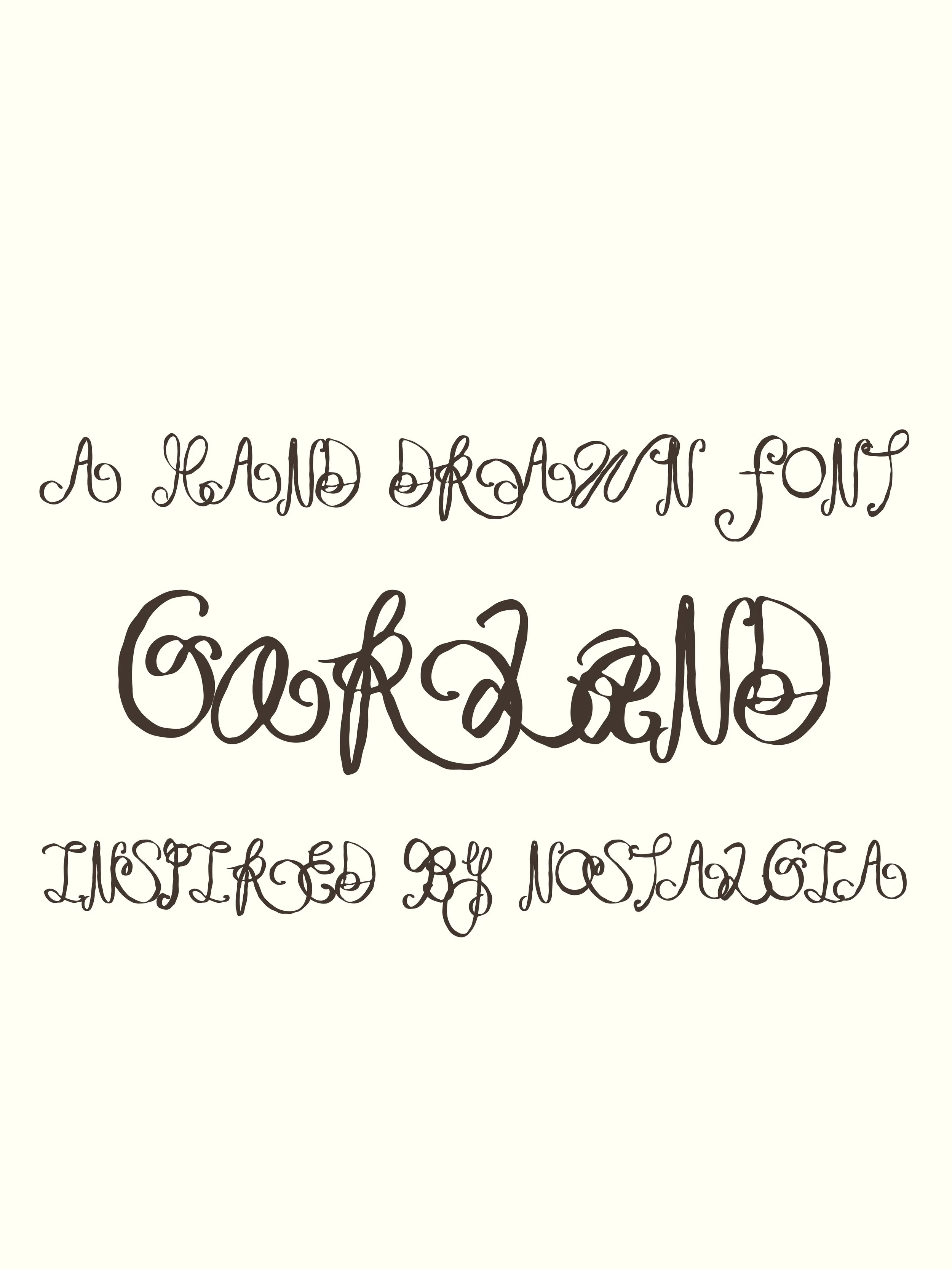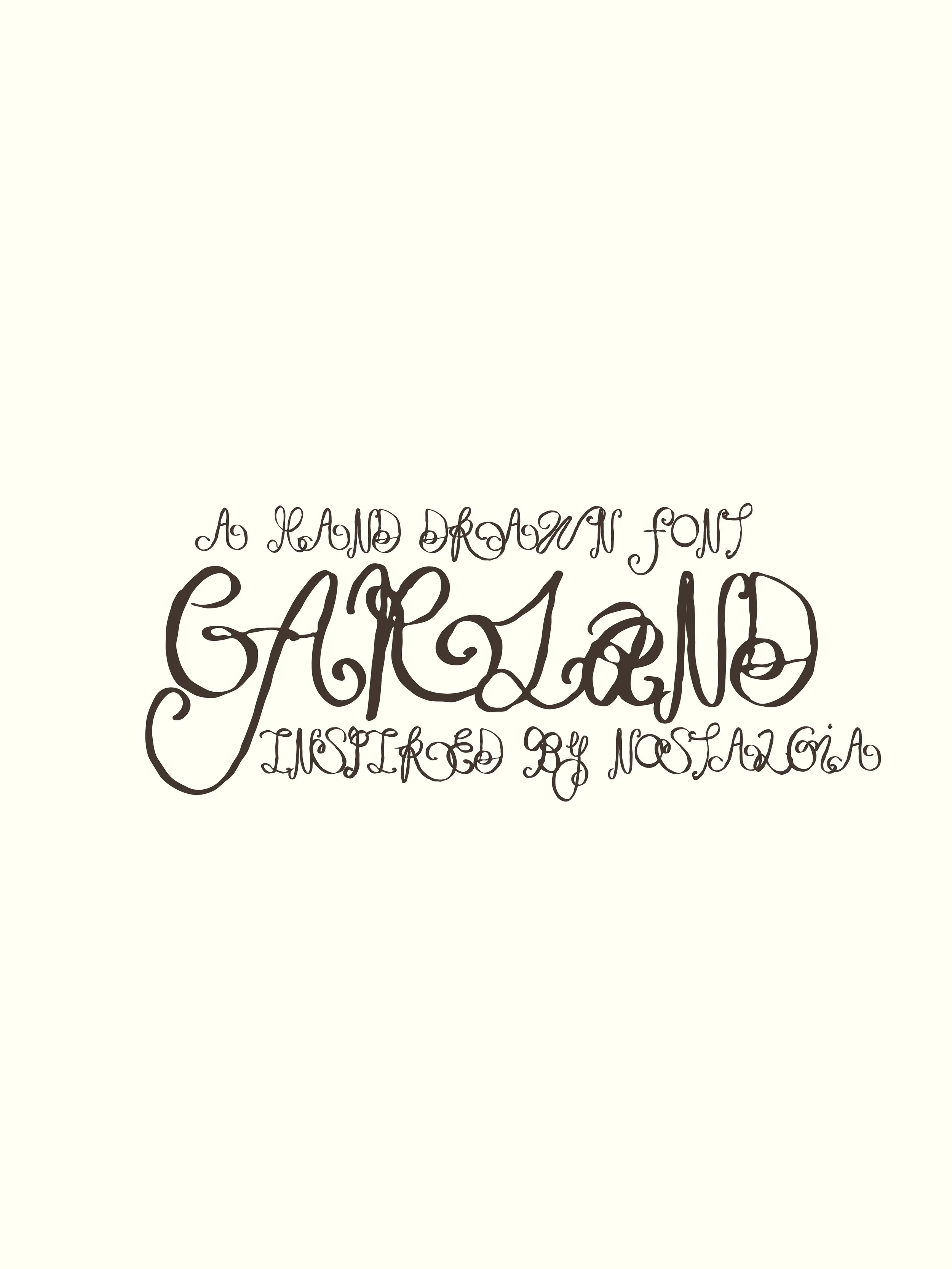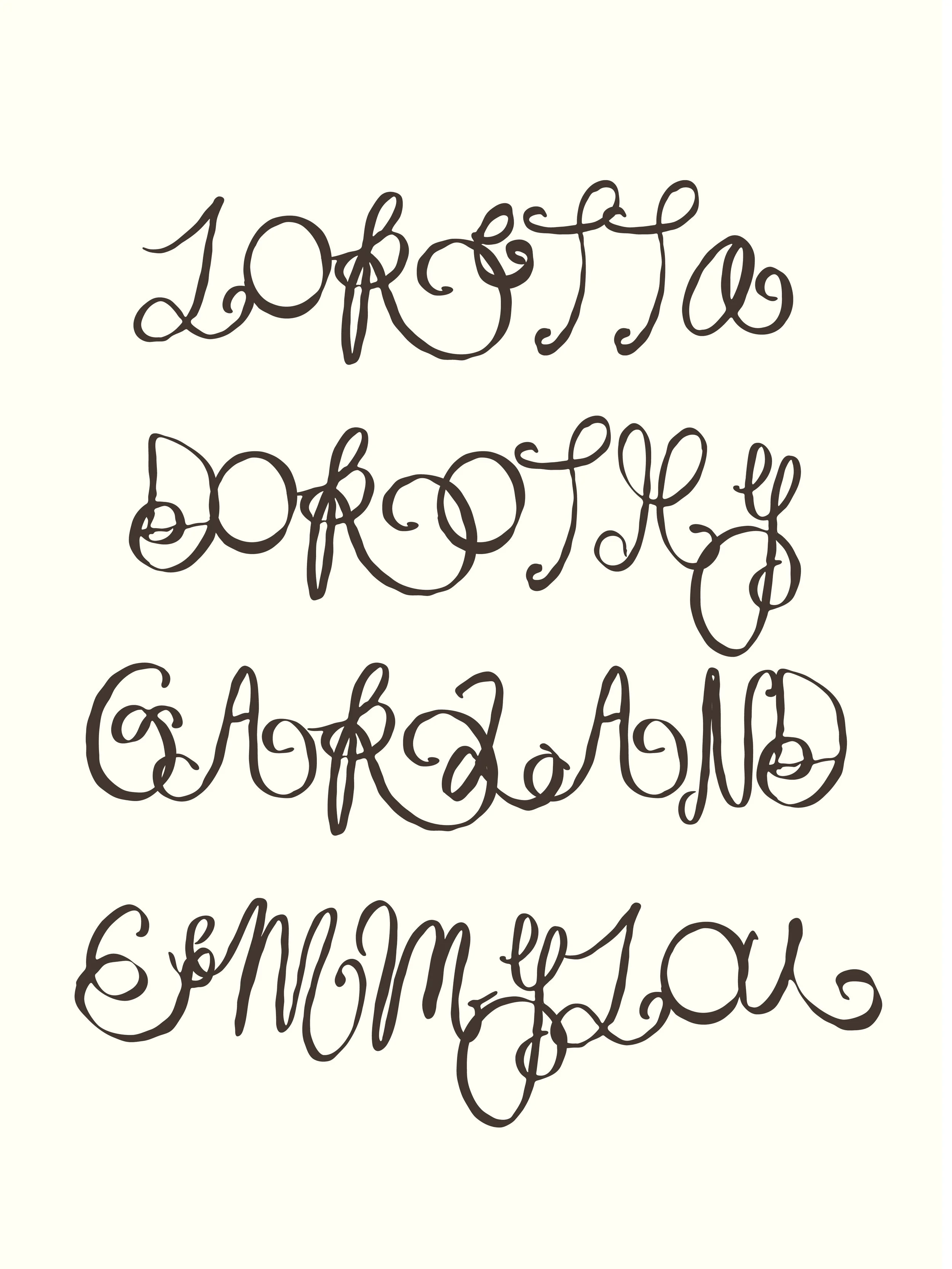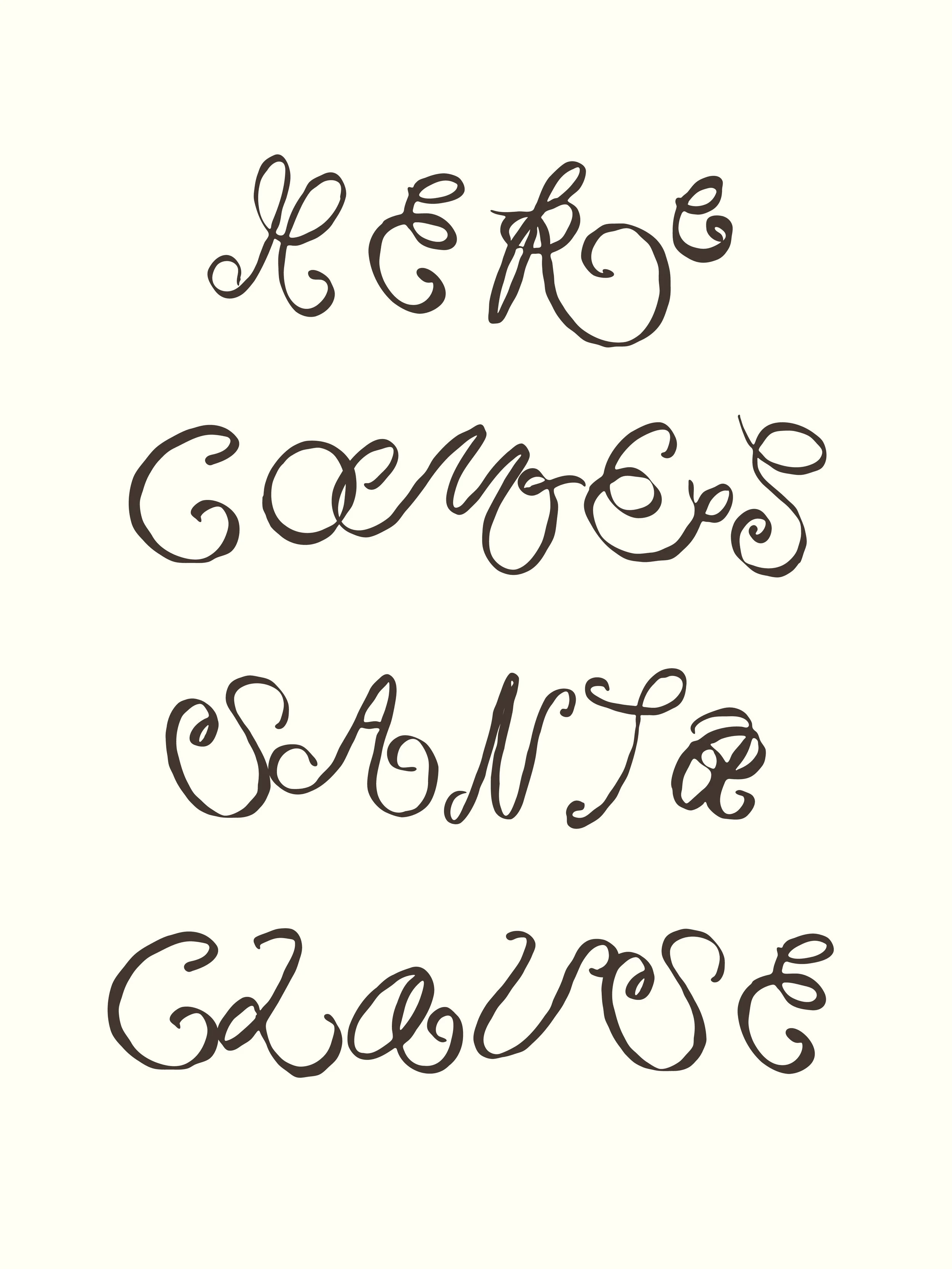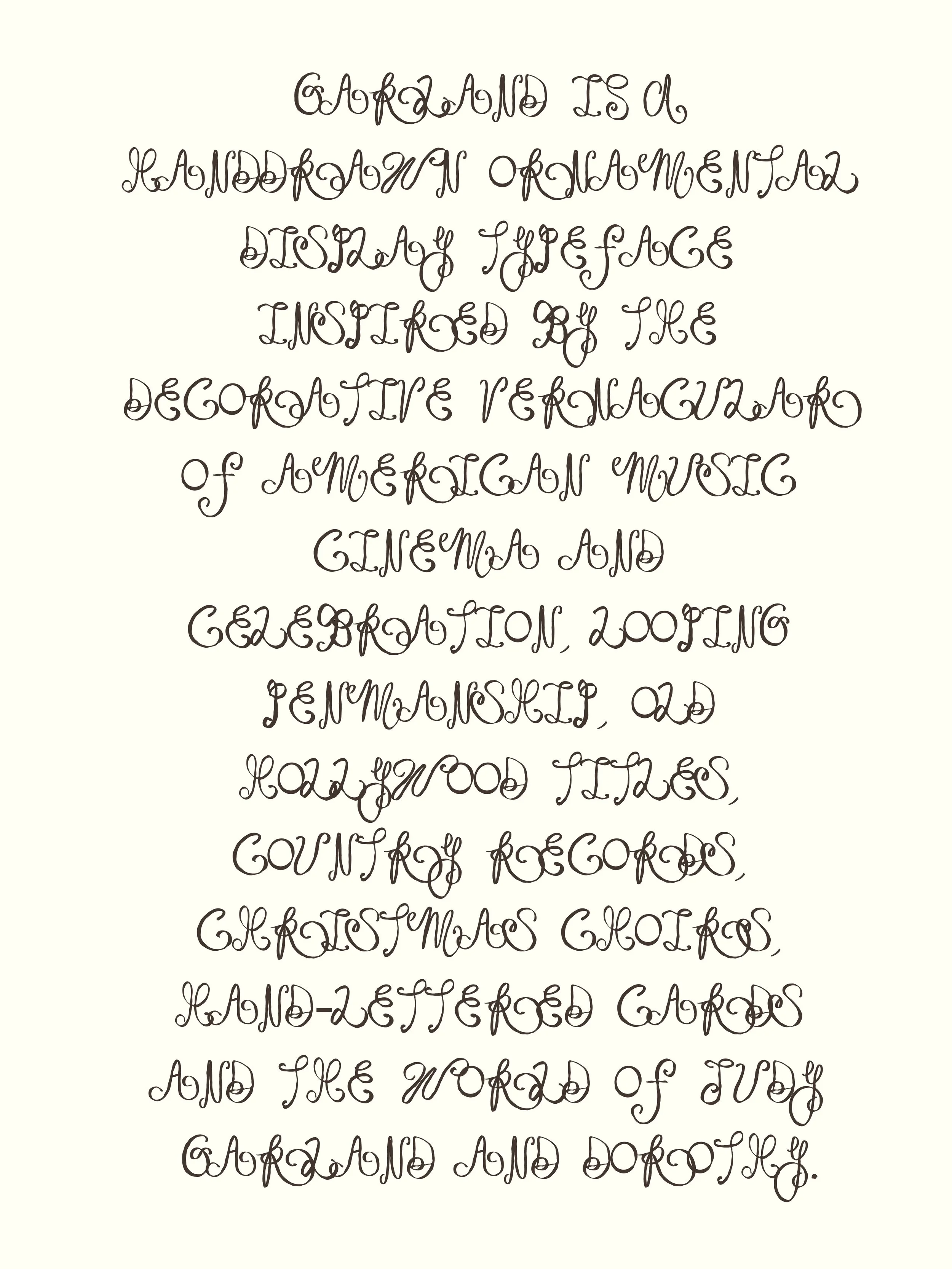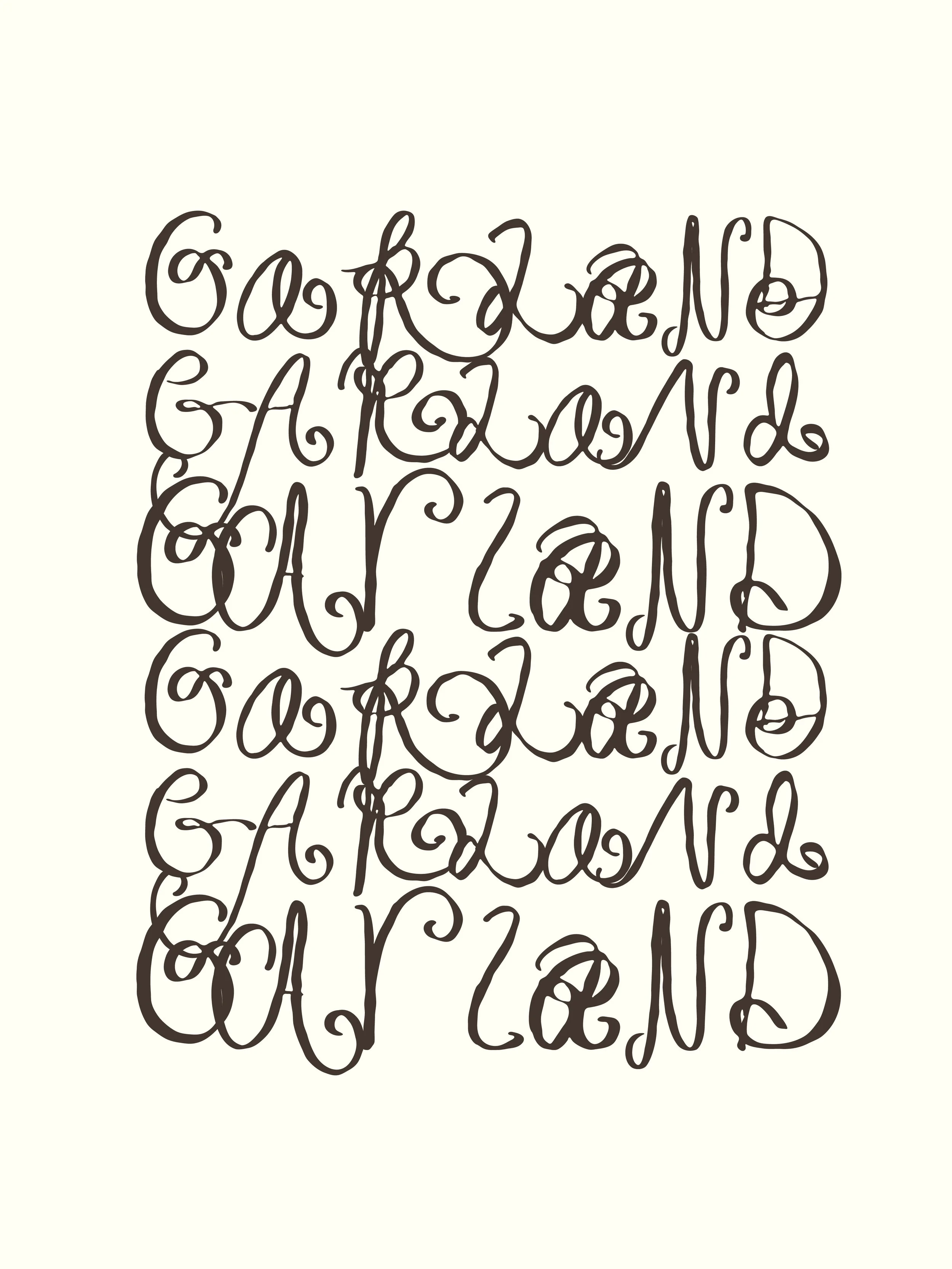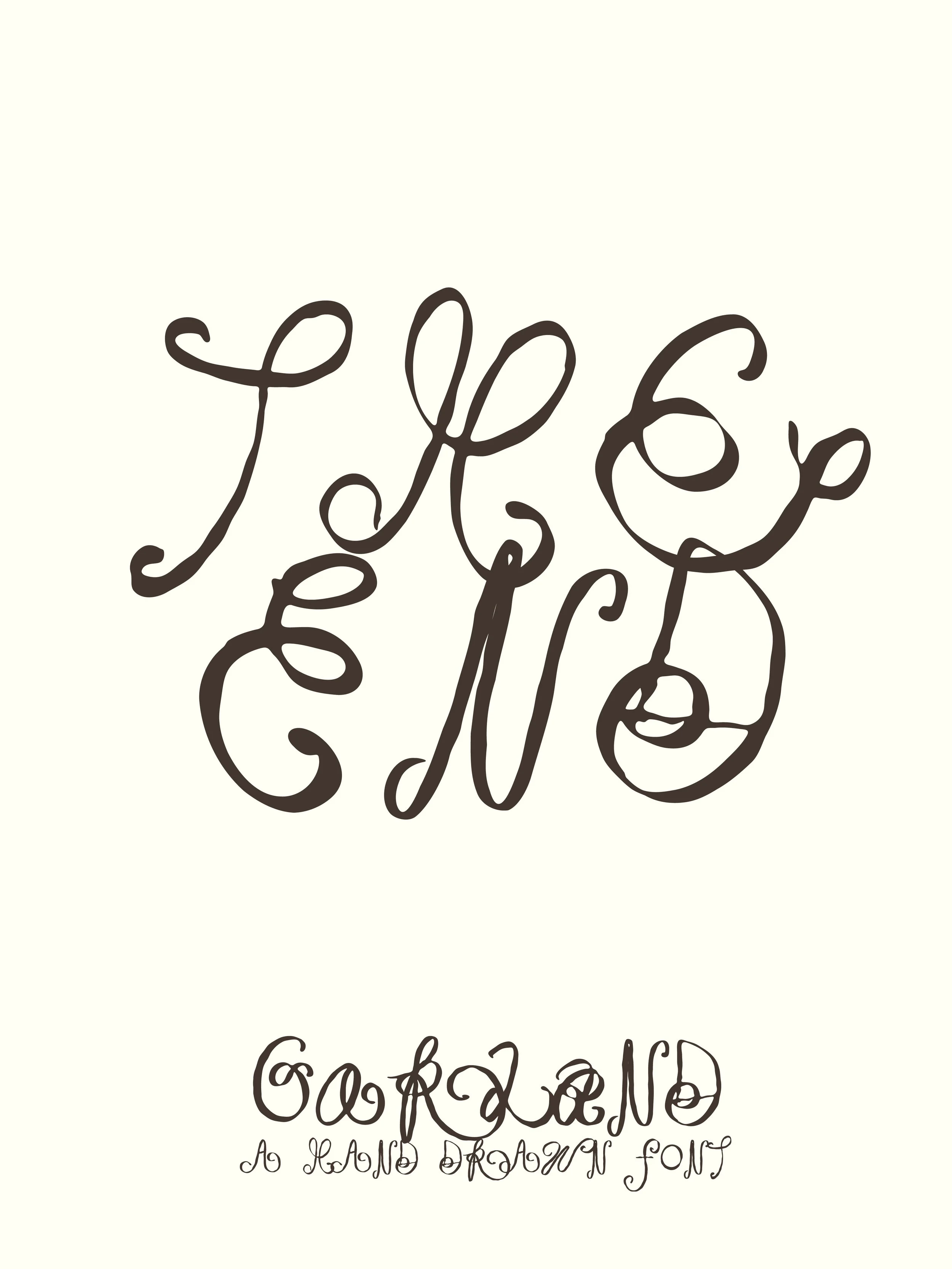
Garland | Hand Drawn Font
Garland is a hand-drawn ornamental display typeface inspired by the decorative vernacular of American music, cinema and celebration — looping penmanship, old Hollywood titles, country records, Christmas choirs, hand-lettered cards and the theatrical world of Judy Garland and Dorothy.
Made entirely by hand, the letters twist, curl and wander. Strokes loop back into themselves, forms hang and drape like ribbons, and some characters almost become little illustrations — a trumpet, a bow, a flourish, a garland hanging across a room.
There’s something nostalgic about Garland, but it’s difficult to place exactly. A little Hollywood. A little Nashville. Christmas cards and wedding invitations. Old sheet music, theatre programmes and record sleeves. Dorothy somewhere over the rainbow.
Rather than reproducing one particular historical lettering style, Garland takes its cues from American ornamental and vernacular lettering and lets things get a little stranger. The alphabet is deliberately irregular, with narrow letters sitting beside wide looping forms and unexpected details appearing throughout.
Each character also comes with hand-drawn alternates, allowing the same word to shift in personality depending on the letters you choose. Keep things simple, or let the loops, curls and flourishes take over. The font is designed for the letters to overlap and be imperfect like ribbons at Christmas.
Made for words that deserve a little ceremony.
Uppercase A–Z (with alternates)
Numbers 0-9
No lowercase
No punctuation
Garland is an all-caps display font intended for expressive headlines, titles and short pieces of lettering rather than long passages of text. The textured edges on the font is intentional and will remain when using the font.